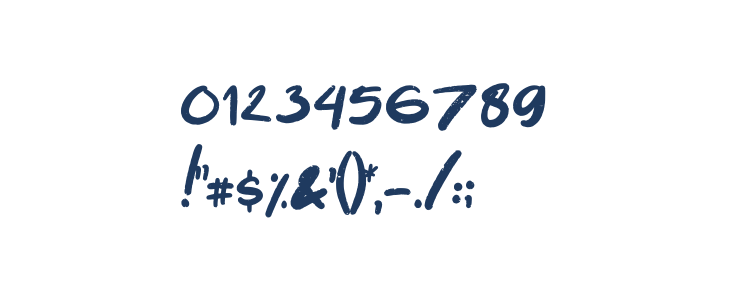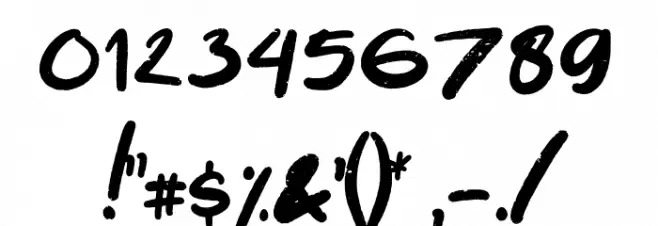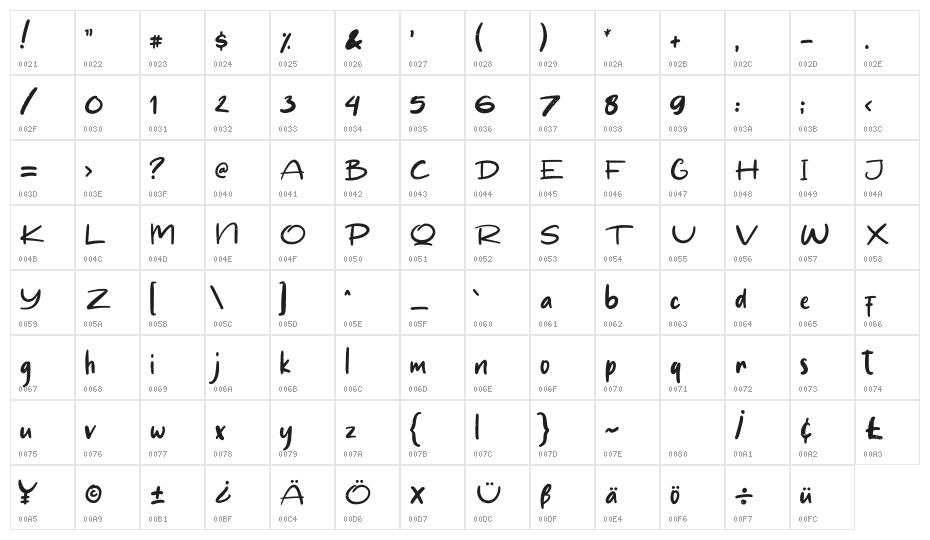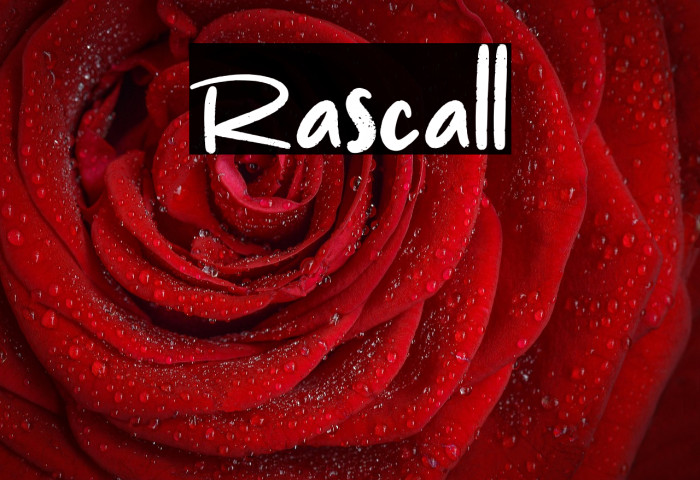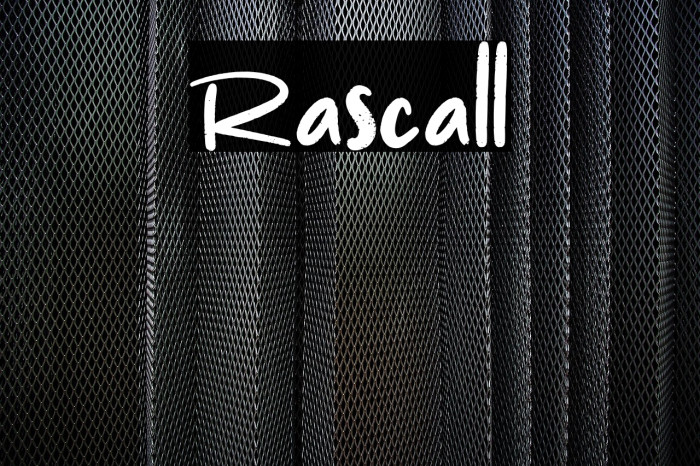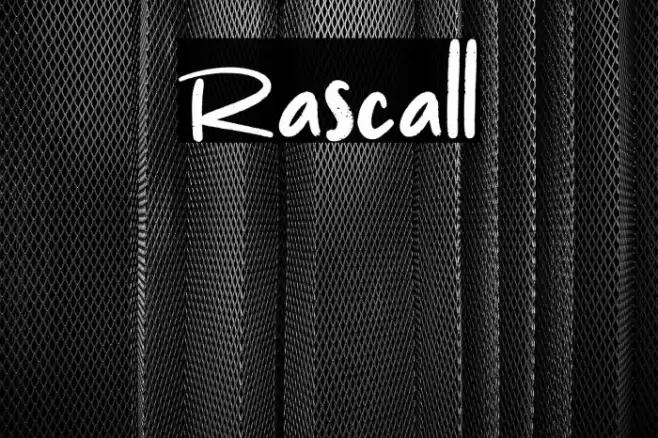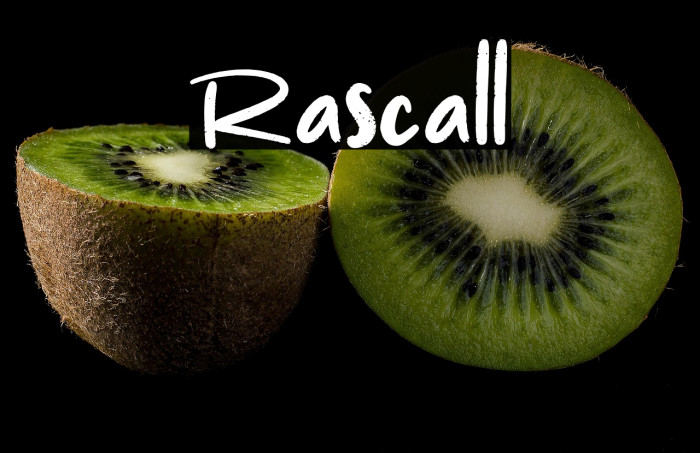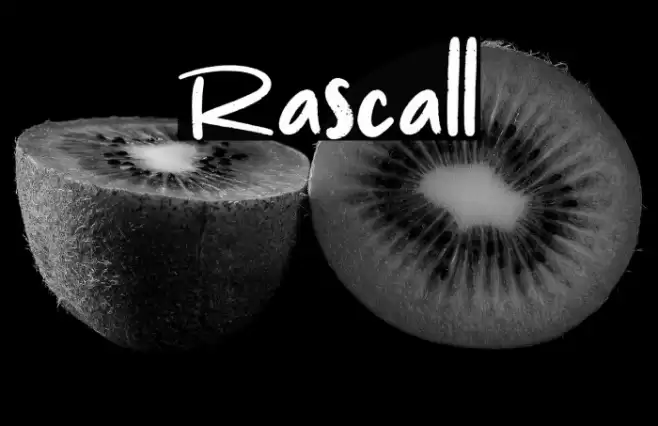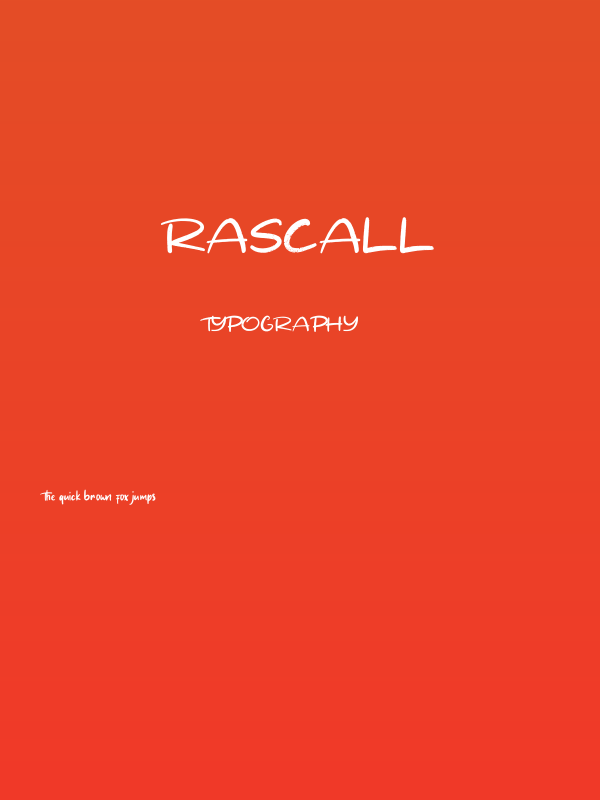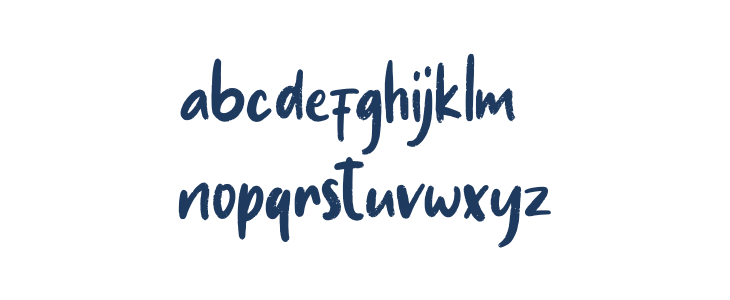
Rascall Font
Rascall Description
This font features a playful and energetic handwritten style, characterized by its bold and expressive strokes. The uppercase letters are slightly irregular, adding a dynamic and informal touch, while the lowercase letters maintain a consistent flow with a casual flair. The numbers and special characters follow the same lively aesthetic, making the font suitable for creative and fun projects. Its brush-like texture gives it a handcrafted feel, perfect for designs that aim to convey a personal and approachable vibe.